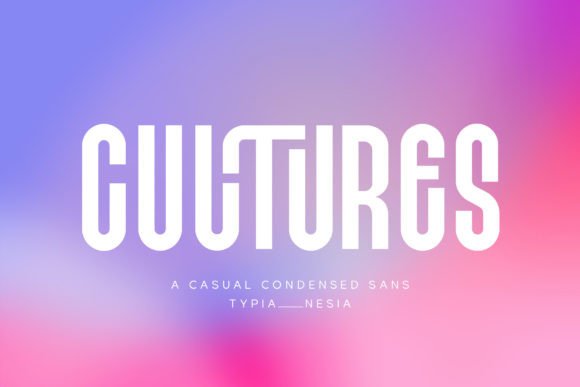
Cultures Font: A Modern Bold and Dynamic Display Font for Sports, Games, and Active Brands
In the world of typography, fonts play a crucial role in conveying the tone and personality of a brand. For sports, games, and active brands, a bold and dynamic display font is essential for creating a lasting impression. This is where Cultures Font comes in – a modern sans-serif font designed to elevate your brand’s visual identity. In this article, we’ll explore the features and benefits of Cultures Font, with a special focus on Cultures Condensed Sans, a variant that’s perfect for creating eye-catching titles and headlines.
Introducing Cultures Font
Cultures Font is a carefully crafted typeface that’s designed to be both functional and visually appealing. Its clean lines, precise curves, and geometric shapes make it an excellent choice for a wide range of design projects, from logos and posters to advertisements and digital media. With its modern sans-serif design, Cultures Font is perfect for brands that want to convey a sense of dynamism, energy, and forward-thinking.
Cultures Condensed Sans: A Bold and Dynamic Display Font
Cultures Condensed Sans is a variant of the Cultures Font family that’s specifically designed for sports, games, and active brands. This bold and dynamic display font features a condensed design that’s perfect for creating eye-catching titles and headlines. With its sleek and modern aesthetic, Cultures Condensed Sans is ideal for brands that want to make a statement and stand out from the crowd.
Key Features of Cultures Condensed Sans
- Condensed design: Perfect for creating eye-catching titles and headlines that grab attention.
- Bold and dynamic: Conveys a sense of energy and movement, ideal for sports, games, and active brands.
- Modern sans-serif design: Clean lines, precise curves, and geometric shapes create a sleek and modern aesthetic.
- Functional and versatile: Suitable for a wide range of design projects, including logos, posters, advertisements, and more.
Why Choose Cultures Condensed Sans?
There are many reasons why Cultures Condensed Sans is an excellent choice for sports, games, and active brands. Here are a few:
- Attention-grabbing: The condensed design and bold weight of Cultures Condensed Sans make it perfect for creating eye-catching titles and headlines that grab attention.
- High-impact: The font’s dynamic and energetic aesthetic makes it ideal for brands that want to convey a sense of movement and action.
- Versatile: Cultures Condensed Sans is suitable for a wide range of design projects, from logos and posters to advertisements and digital media.
- Easy to read: Despite its bold and condensed design, Cultures Condensed Sans remains easy to read, even at small sizes.
How to Use Cultures Condensed Sans
Cultures Condensed Sans is a versatile font that can be used in a variety of design projects. Here are a few ideas to get you started:
- Logos: Use Cultures Condensed Sans to create a bold and dynamic logo that makes a statement.
- Posters: Create eye-catching posters that grab attention with Cultures Condensed Sans.
- Advertisements: Use Cultures Condensed Sans to create high-impact advertisements that convey energy and movement.
- Digital media: Use Cultures Condensed Sans to create engaging digital media, such as social media graphics and website headers.
In conclusion, Cultures Font is a modern sans-serif font that’s perfect for sports, games, and active brands. With its bold and dynamic design, Cultures Condensed Sans is an excellent choice for creating eye-catching titles and headlines. Its versatility, readability, and attention-grabbing aesthetic make it an ideal font for a wide range of design projects. Whether you’re looking to create a logo, poster, advertisement, or digital media, Cultures Condensed Sans is a great choice.
Benefits of Using Cultures Font
- Improved brand visibility: With its bold and dynamic design, Cultures Font can help improve your brand’s visibility and make it stand out from the crowd.
- Increased engagement: The font’s attention-grabbing aesthetic can help increase engagement and convey a sense of energy and movement.
- Enhanced professionalism: Cultures Font’s modern sans-serif design can help enhance your brand’s professionalism and convey a sense of forward-thinking.
Overall, Cultures Font is an excellent choice for sports, games, and active brands that want to make a statement and elevate their visual identity. With its bold and dynamic design, Cultures Condensed Sans is perfect for creating eye-catching titles and headlines that grab attention.